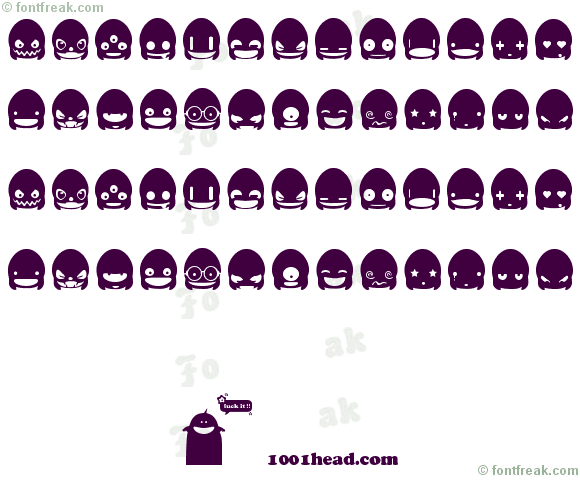
Ghost Smileys
Ghost Smileys by Maelle.K is a unique display font that captivates with its playful and whimsical character design. This decorative typeface features a collection of ghost-like smiley icons, each exuding a distinct personality, making it perfect for projects that require a touch of humor and creativity. The strokes are bold and rounded, creating a fun and approachable aesthetic that stands out against more traditional typefaces. The consistent spacing between the characters ensures clarity while adding a sense of rhythm and flow to any text.
This font is ideal for a variety of applications, particularly in creative and informal settings. Graphic designers can use Ghost Smileys to enhance social media graphics, giving a lighthearted touch to posts or stories. Small business owners might find it perfect for branding elements, such as logos or promotional materials that aim to engage a younger audience. Content creators can utilize the font for YouTube thumbnails or video overlays, making their content more relatable and visually appealing. Additionally, it can be a fantastic choice for event flyers or posters, particularly for Halloween-themed parties or children's events.
The target audience for Ghost Smileys includes graphic designers, content creators, and small business owners looking to add a playful element to their work. Its freeware license makes it accessible for anyone wishing to experiment with this charming typeface without any cost barriers.
What sets the Ghost Smileys font apart is its ability to blend fun with functionality. It adds a layer of expressiveness that can transform ordinary text into engaging visuals. Whether you're designing for print or digital platforms, the Ghost Smileys font free download offers a distinctive style that invites creativity and sparks joy.